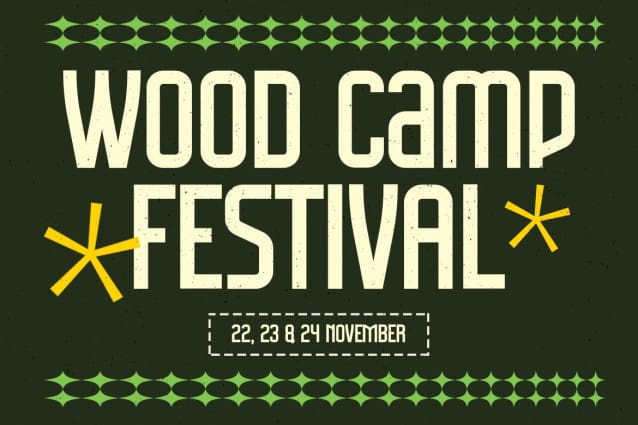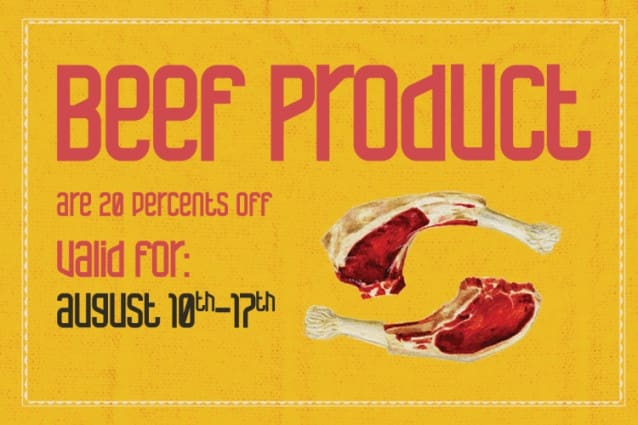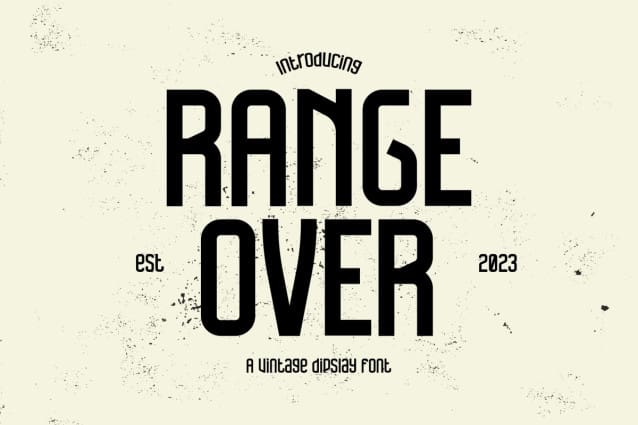
Range Over Font
Range Over Font, where vintage charm meets modern sophistication. Tailored for gaming, films, logos, quotes, invitations, signage, posters, greeting cards, packaging, branding, wedding quotes, cover albums, and beyond, RANGEOVER invites you to explore a fusion of timeless and contemporary styles.